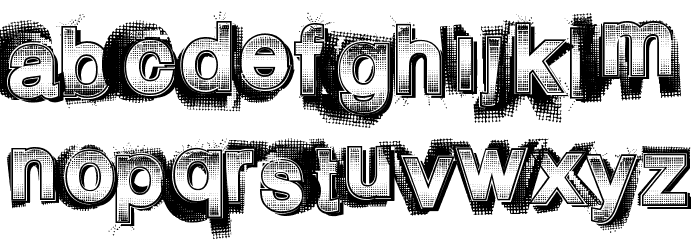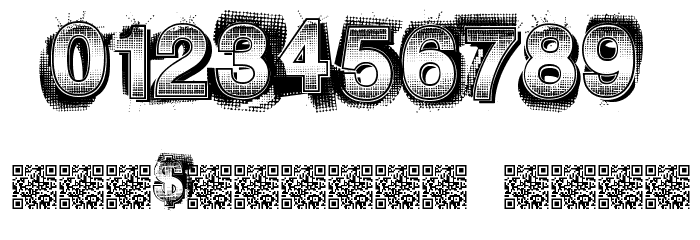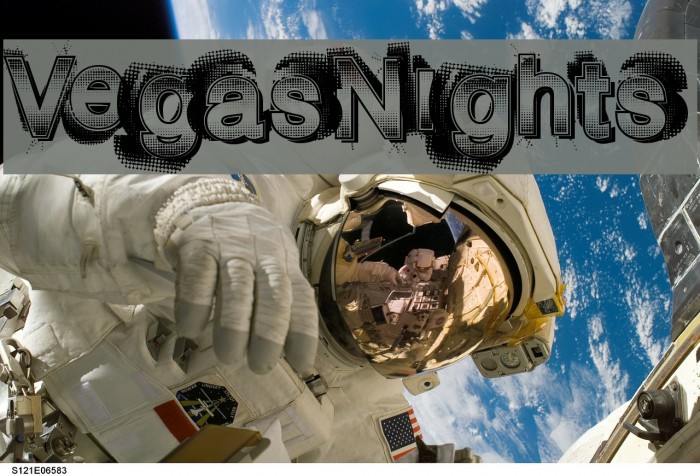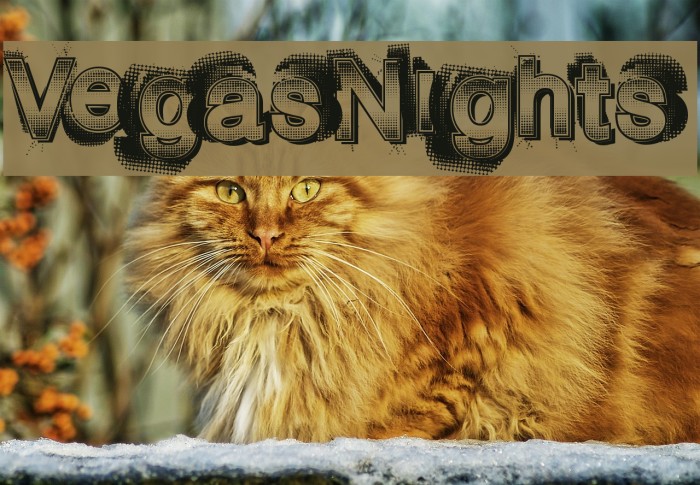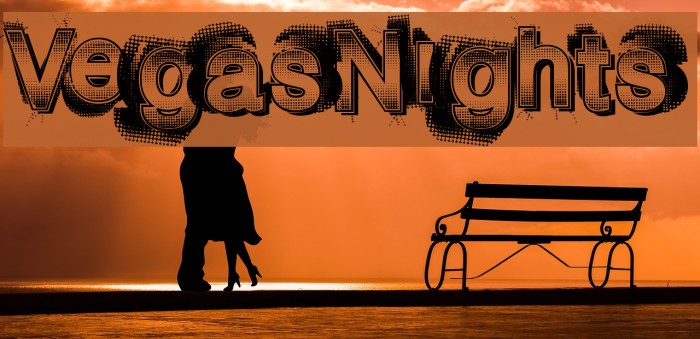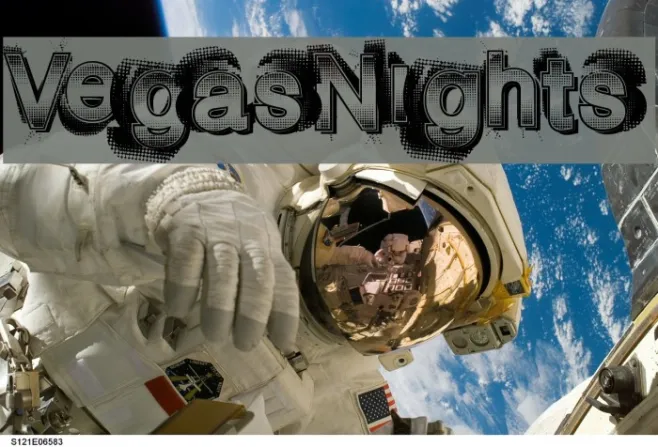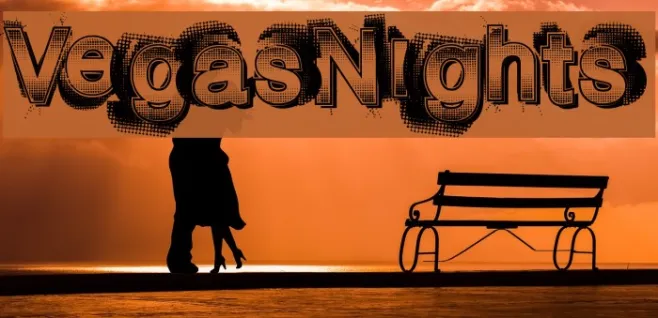
VegasNights Font
This font features a bold, decorative style with a distinct 3D effect, achieved through a halftone pattern that gives it a retro, comic book-like appearance. The characters are uppercase and lowercase letters, numbers, and a selection of special characters. The design is eye-catching and dynamic, making it ideal for projects that require a strong visual impact. The halftone shading adds depth and texture, enhancing its playful and energetic vibe. This font is perfect for creative projects where a sense of fun and excitement is desired.
A bold, decorative font with a retro 3D halftone effect.
- Proposed Projects: Ideal for posters, comic book titles, event flyers, and retro-themed designs.
- Overall Style: Retro, Decorative